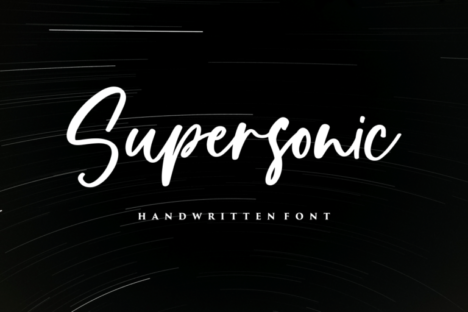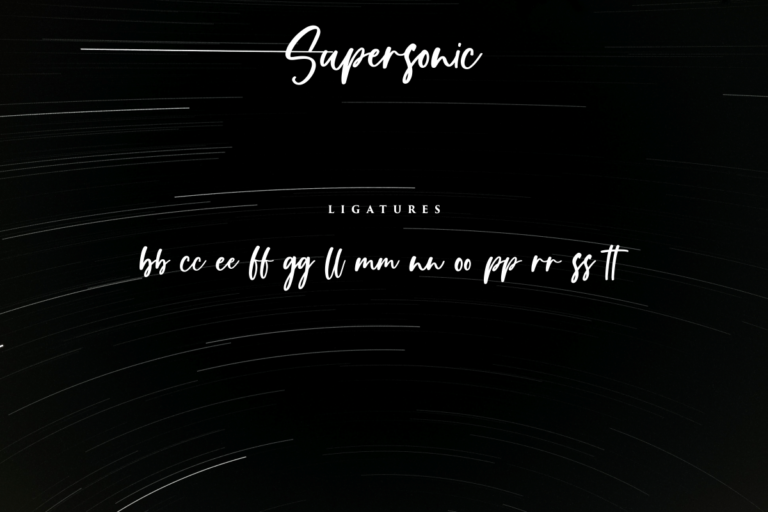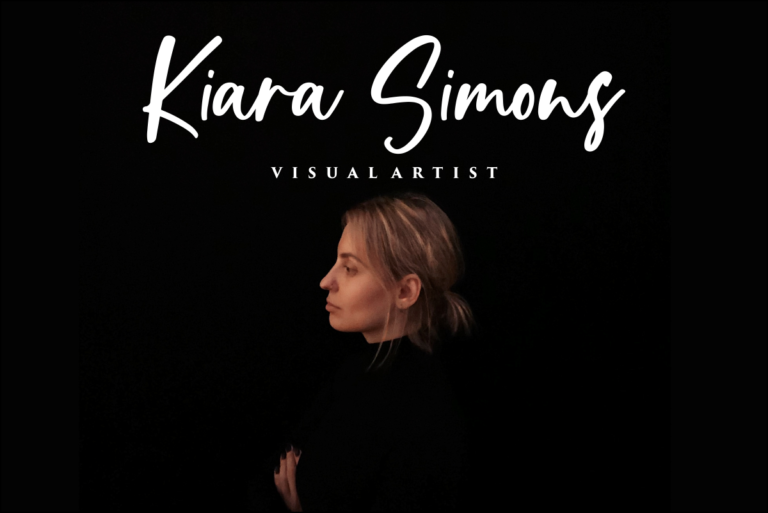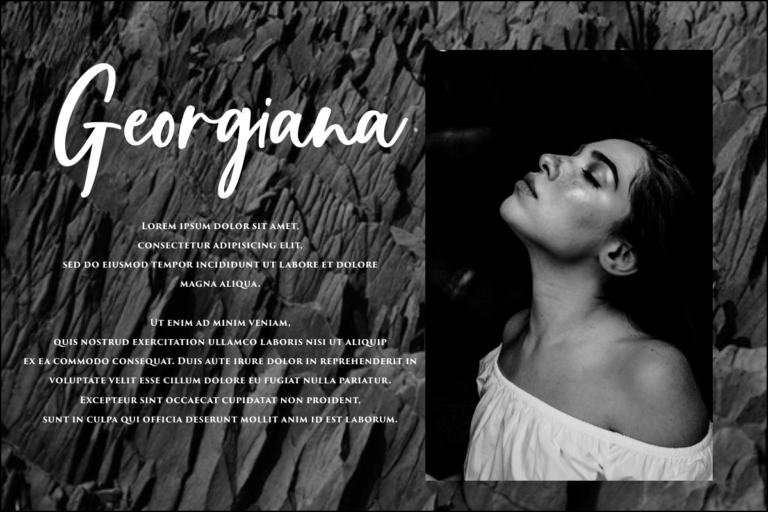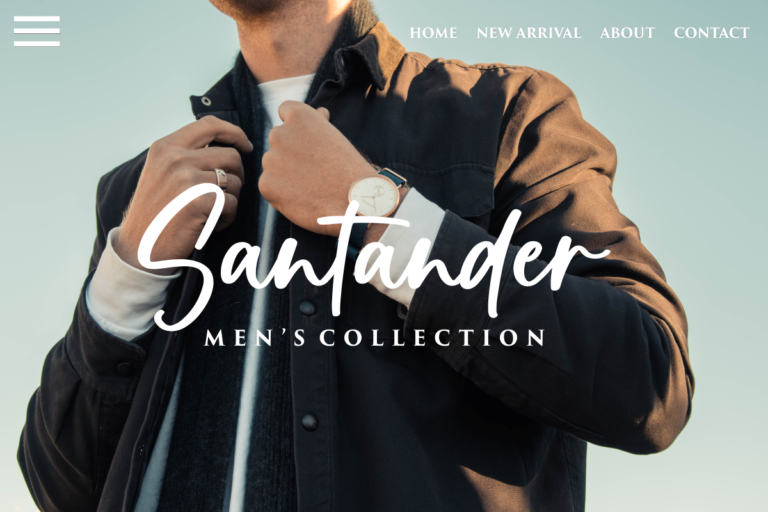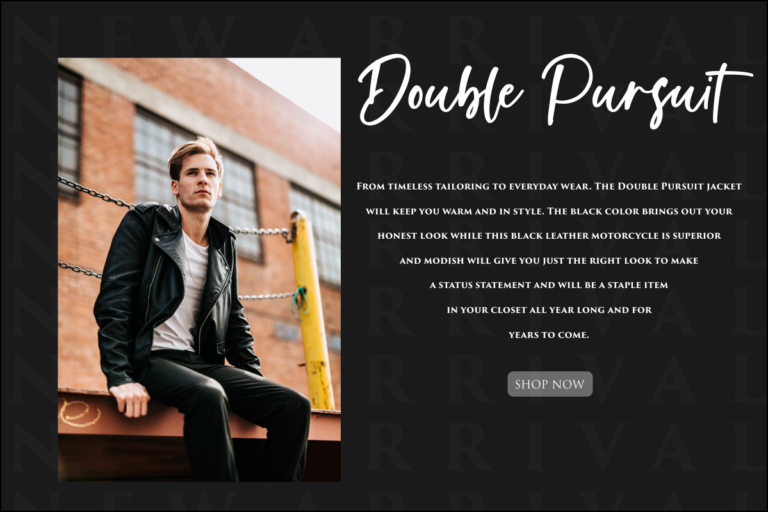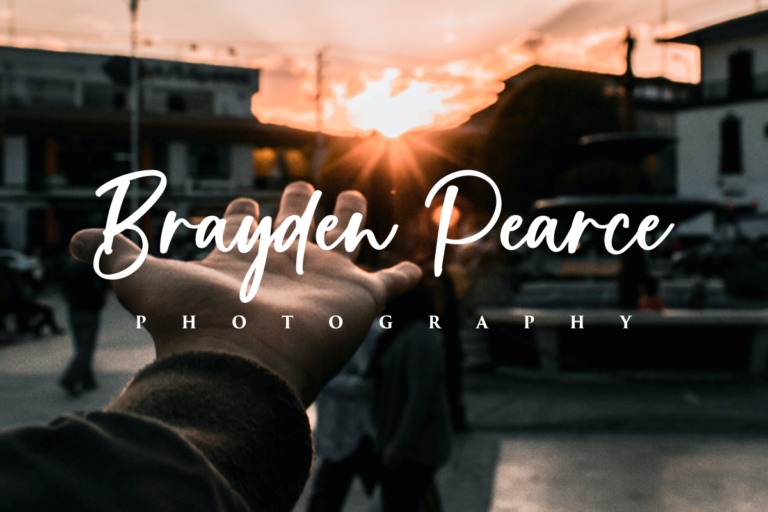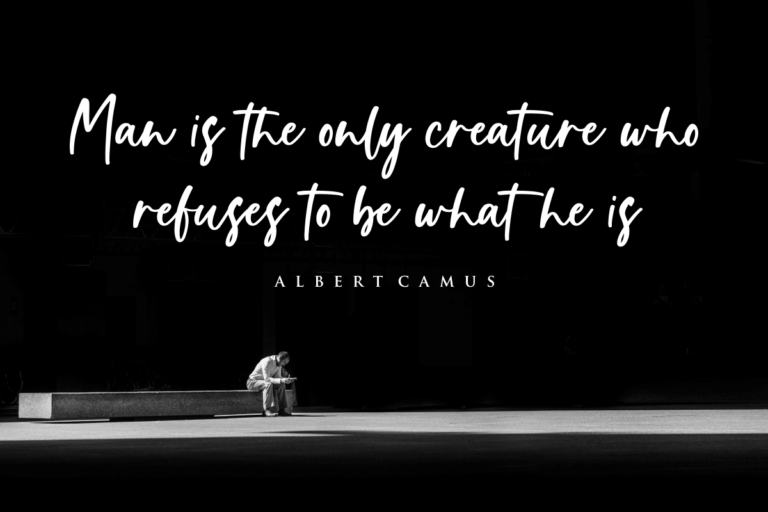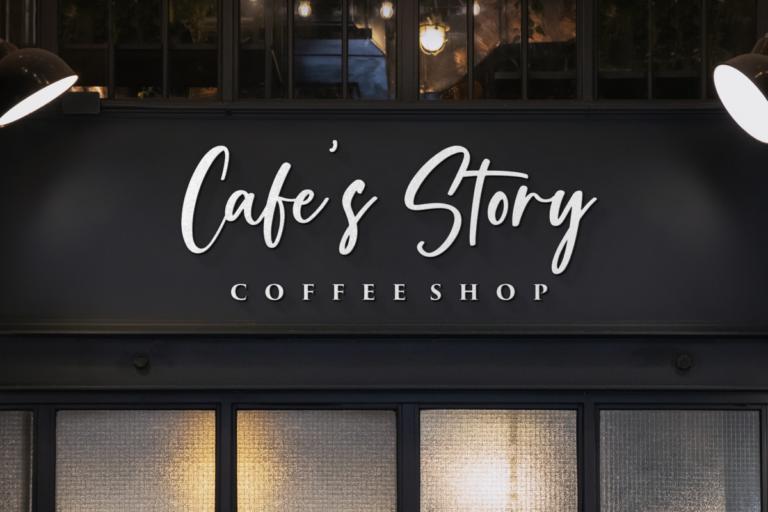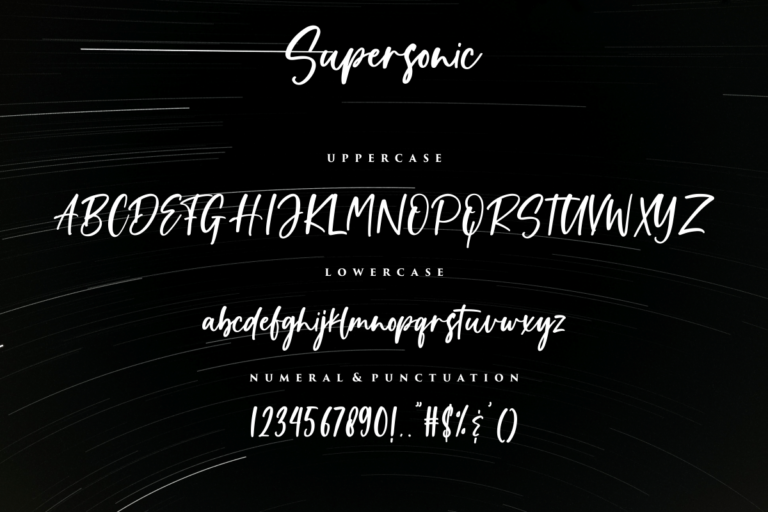
- Supersonic – Handwritten Font
Supersonic
The quick brown fox jumps over the lazy dog
Supersonic – is a natural handwritten. This font is made in a modern style with elegantly, very casual and suitable for your various design needs. It’sPerfect for logo, branding, tittle, social media posts, advertisements, product packaging, product designs, label, photography, watermark, special event, magazine, web design, etc.
- Supersonic ( Uppercase, Lowercase )